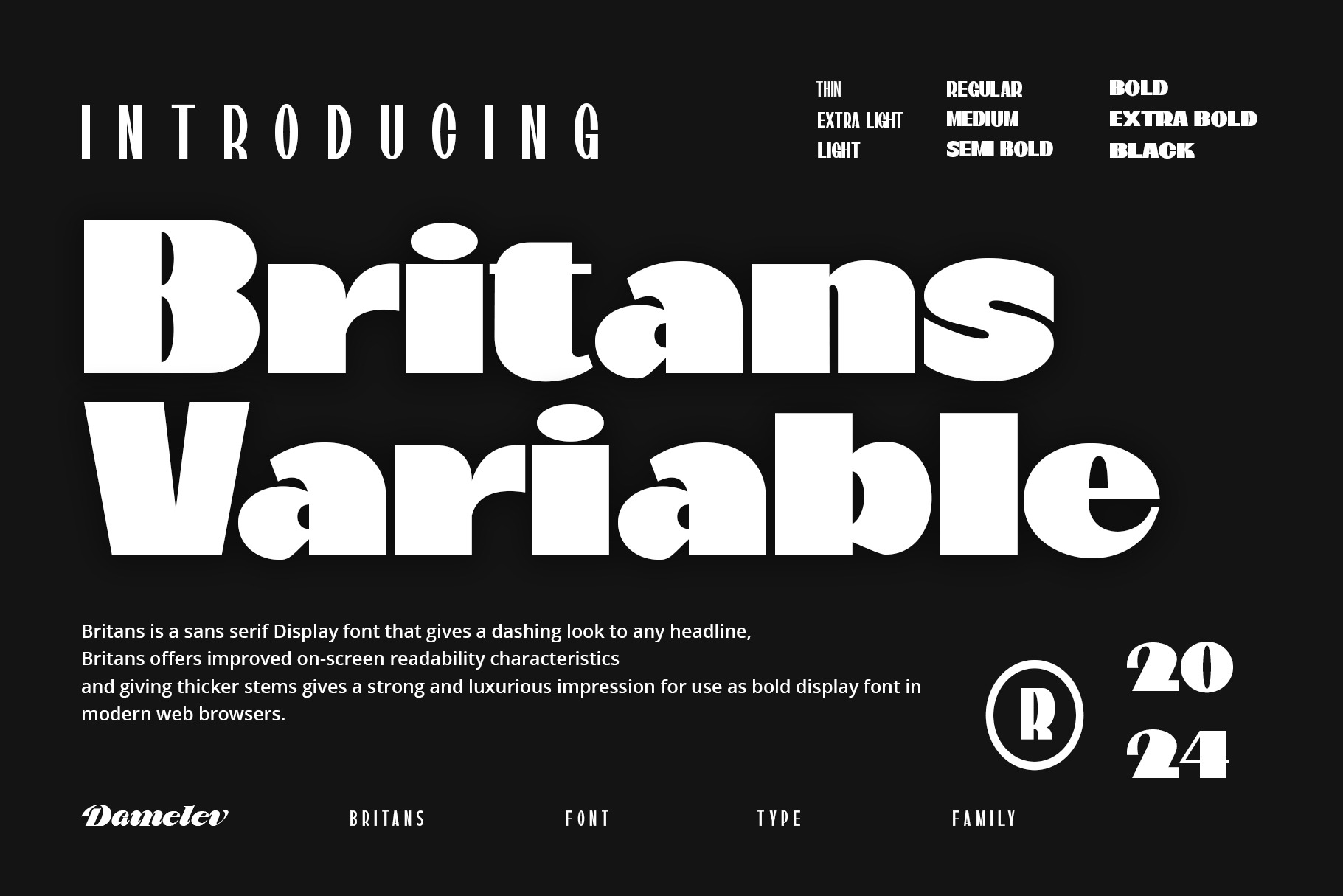
Britans Font
Britans is a sans serif Display font that gives a dashing look to any headline, Britans offers improved on-screen readability characteristics and giving thicker stems gives a strong and luxurious impression for use as bold display font in modern web browsers.
The pack also includes nine different which are Thin, Extra Light, Light, Regular, Medium, Semi Bold, Bold, Extra bold, Black, and support multilingual.